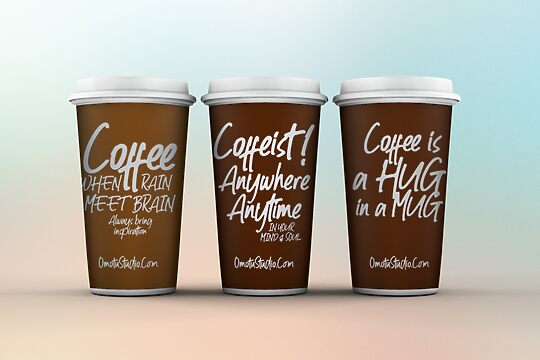
Grinds font designed by Omotu Studio is an expressive brush font. It features modern and dynamic brushstrokes that give it its casual, energetic, and artistic vibe. Like many brush fonts, this one showcases that irregular style that will add freshness to your designs and excite your audience. The bold typeface can grab the attention of an audience and interact with them on both an emotional and intellectual levels.
Use Grinds font for packaging, labels, book covers, posters, branding, advertising projects, flyers, or magazines. It is suitable for tattoos or gifts with a personal flair as well.